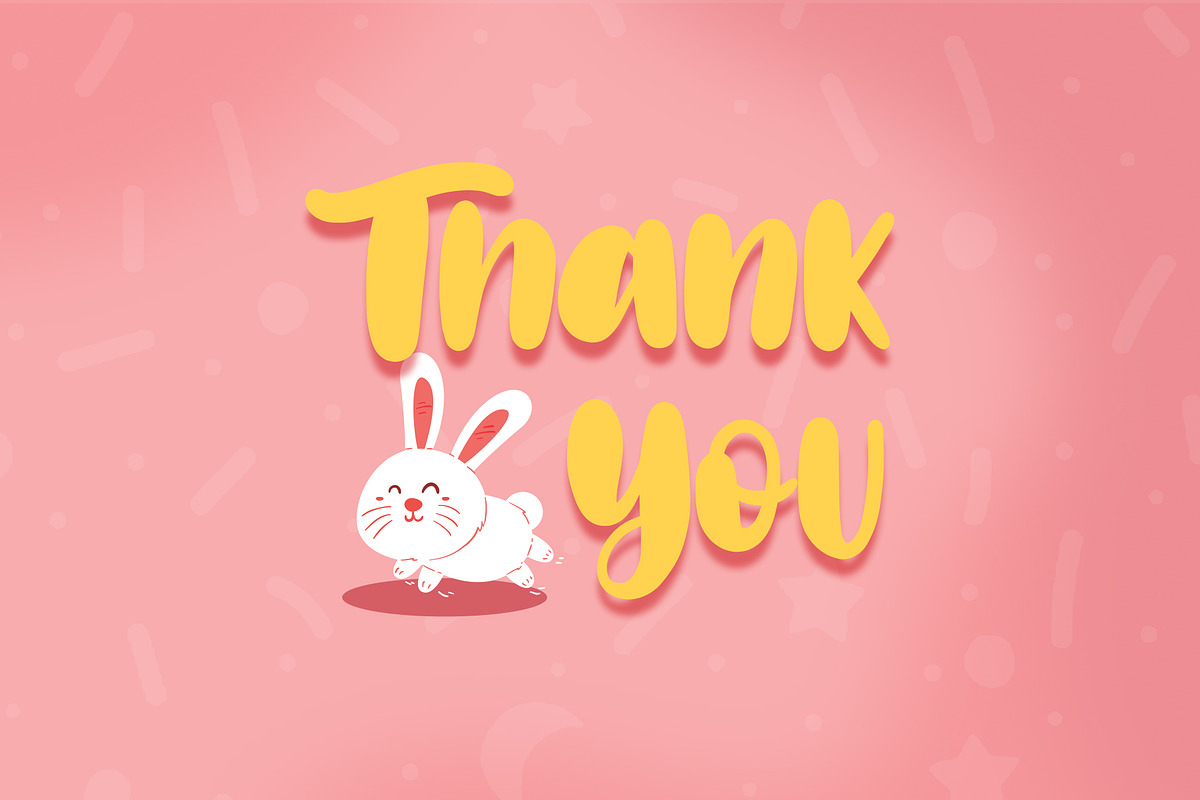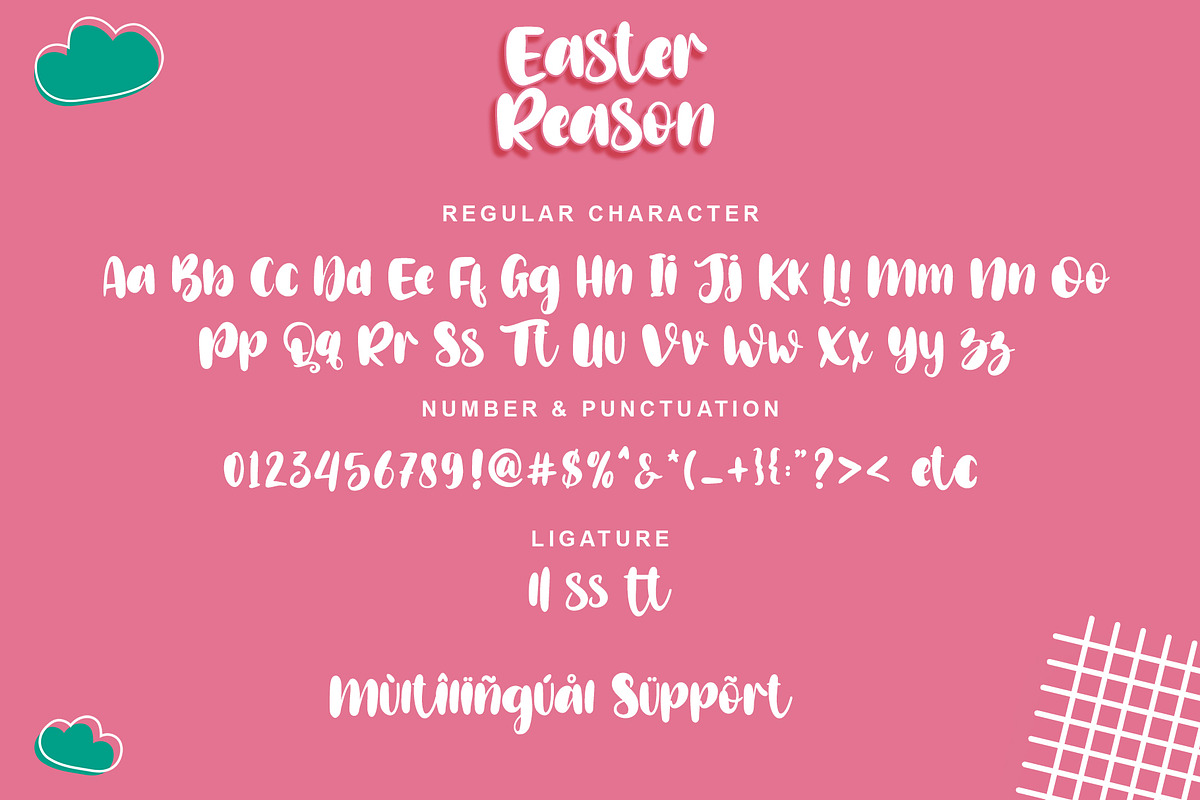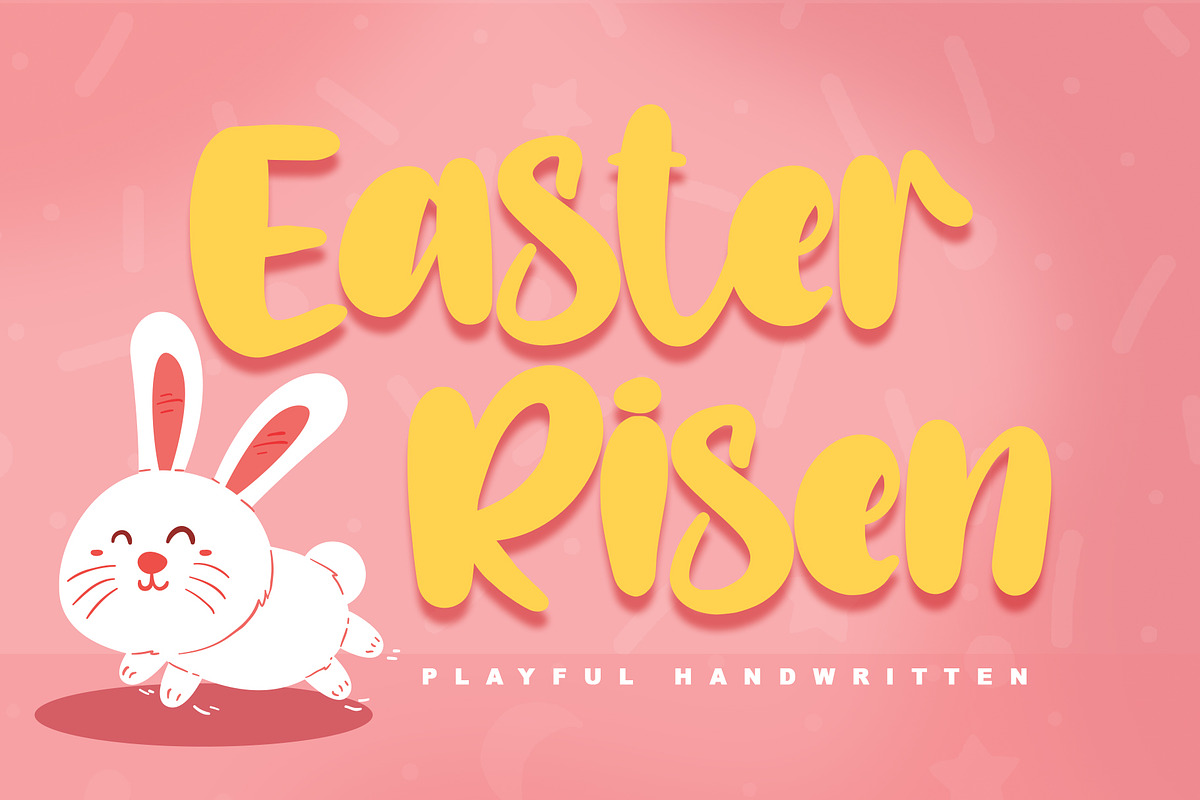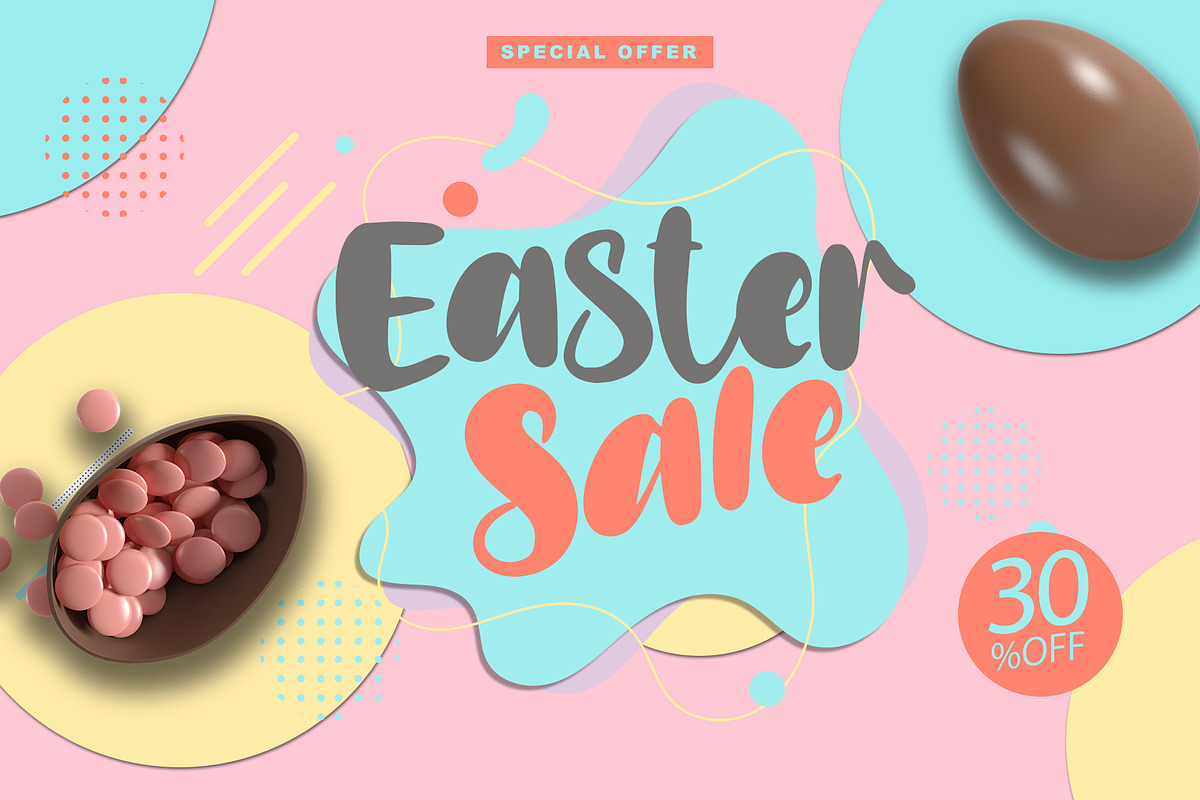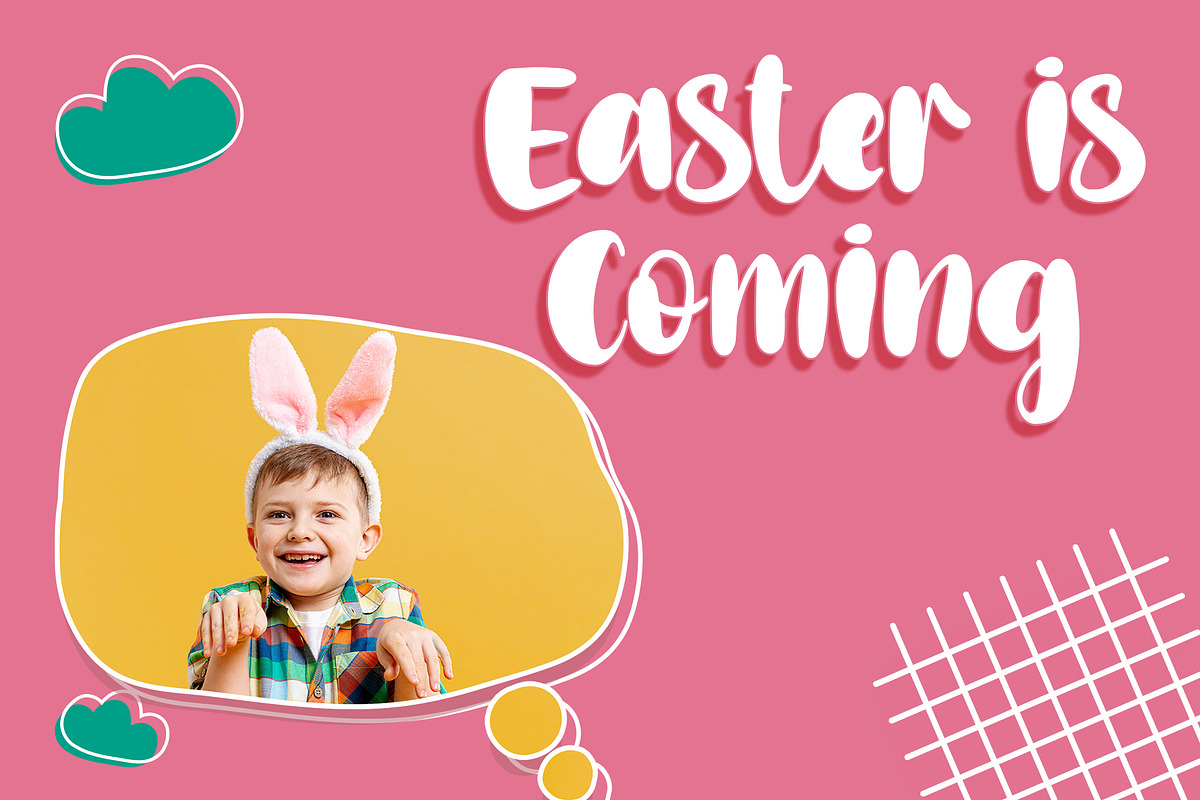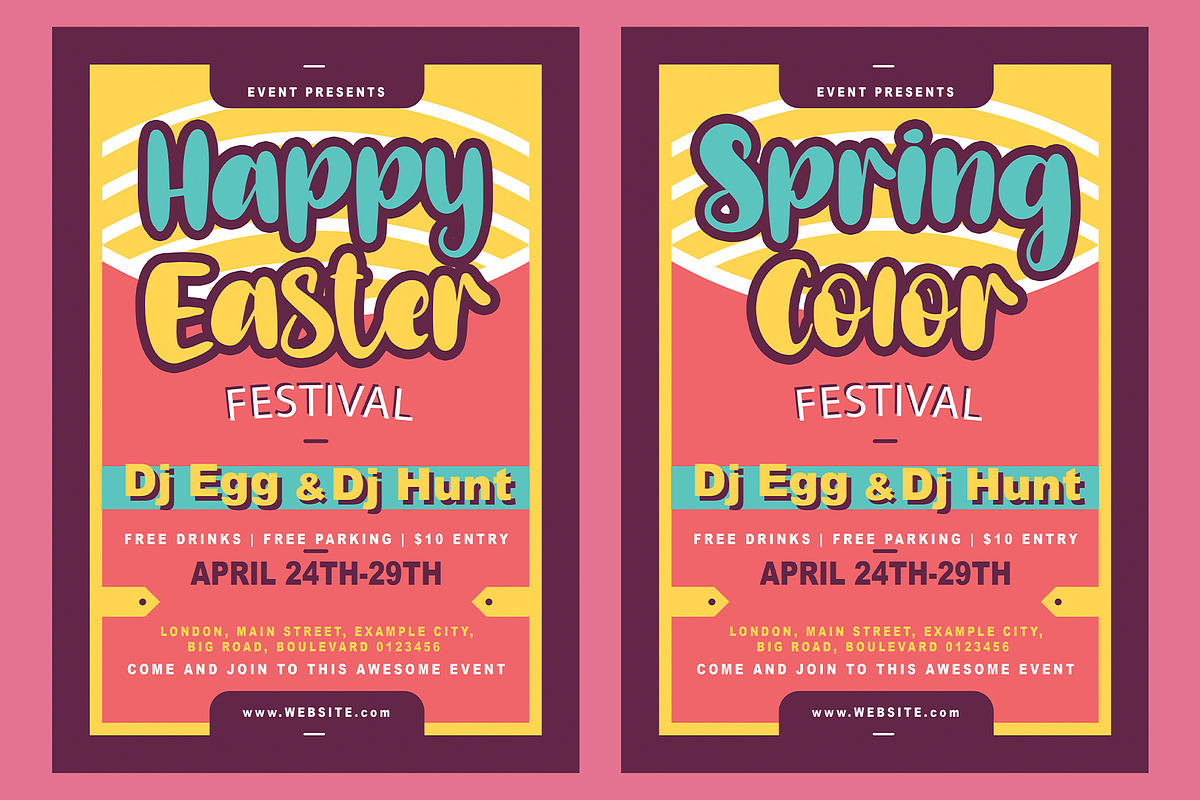
Easter Risen
Easter Risen is a new, fresh, sweet, and unique handcrafted font. It's ideal for branding and decorating your projects. Easter Risen font has a classy and modern look that can be used for logos, branding, easter, invitations, posters, advertisements, stationery, animated films, social media posts, youtube channel, and much more! It is PUA coded which means you can access all the glyphs and sweeps easily!
- Support multilingual; ä ö ü Ä Ö Ü ß ¿ ¡
- lowercase and uppercase letters